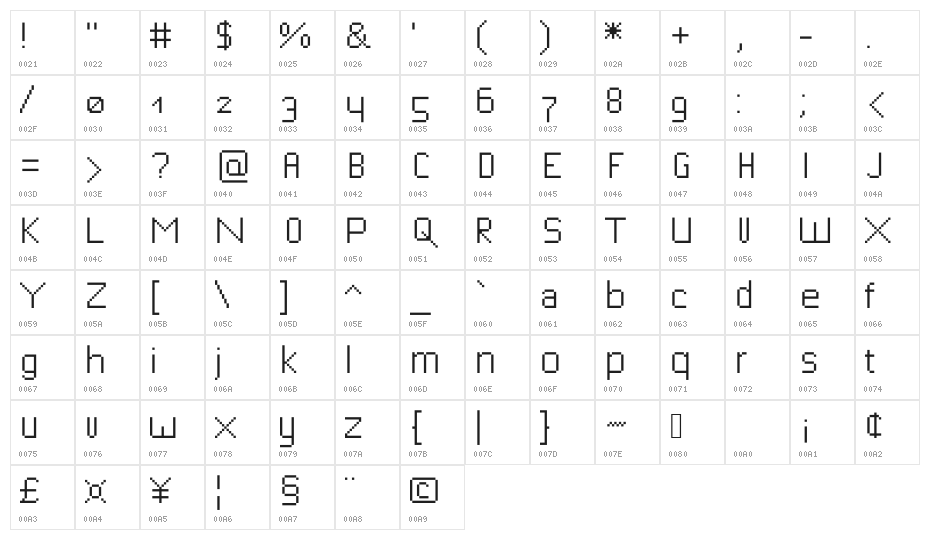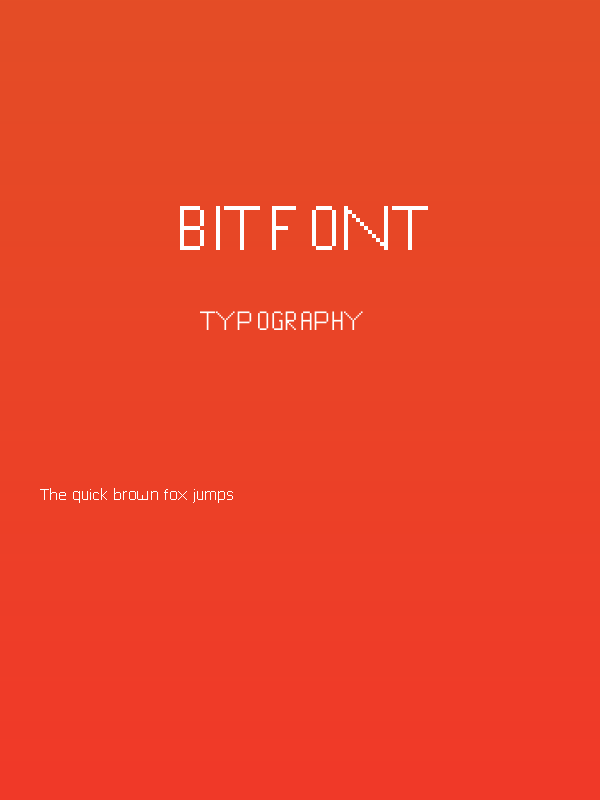
bitfont Font
bitfont Description
This font features a pixelated, grid-like design that is reminiscent of early digital displays and retro video games. Each character is constructed with a uniform grid pattern, giving it a blocky and geometric appearance. The uppercase and lowercase letters maintain a consistent height and width, contributing to a monospaced feel, although the font itself is not strictly monospaced. The numerals and special characters follow the same pixelated style, ensuring a cohesive look across all glyphs. This design is ideal for projects that aim to evoke nostalgia or a digital, tech-oriented theme.
| Overall Style | Retro, Digital |
| Use Case | Logos, Posters, Digital Art |
| Proposed Projects | Ideal for retro video game designs, tech-themed posters, digital art, and any project seeking a nostalgic or digital aesthetic. |